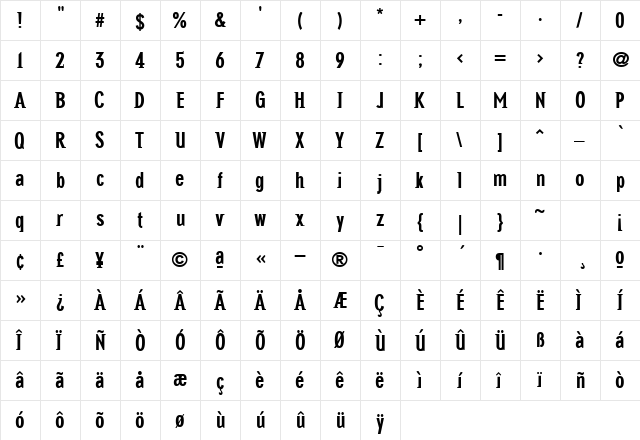
NewGlobal Bold
NewGlobal is a composed and adaptable typeface that performs quietly and consistently across a wide range of design contexts. Its bold stroke weight gives it real presence on the page.